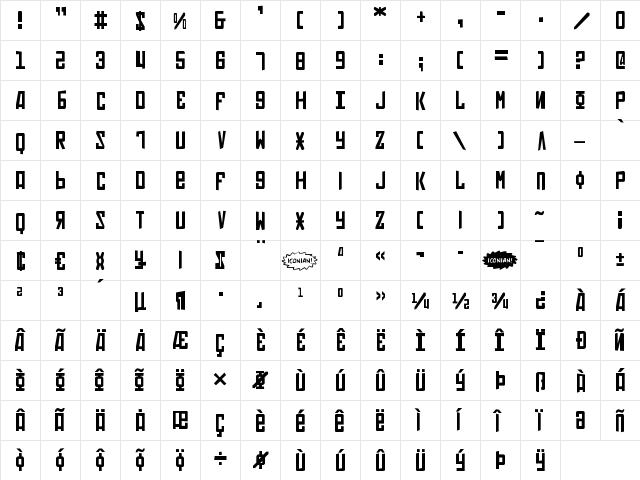
Soviet Punk Punk
| Designer | Dan Zadorozny |
Design Context for Soviet Punk Typeface
Soviet Punk is a composed and adaptable typeface that performs quietly and consistently across a wide range of design contexts.